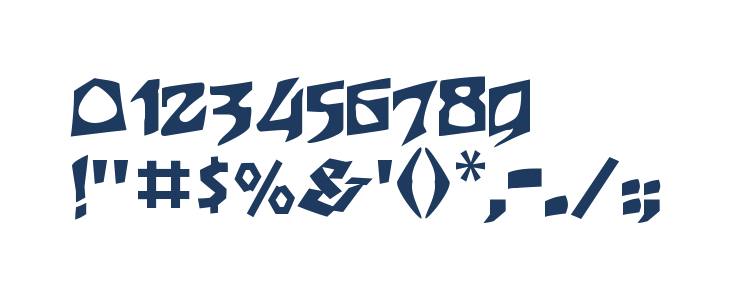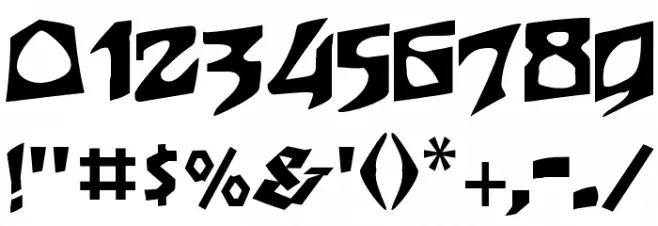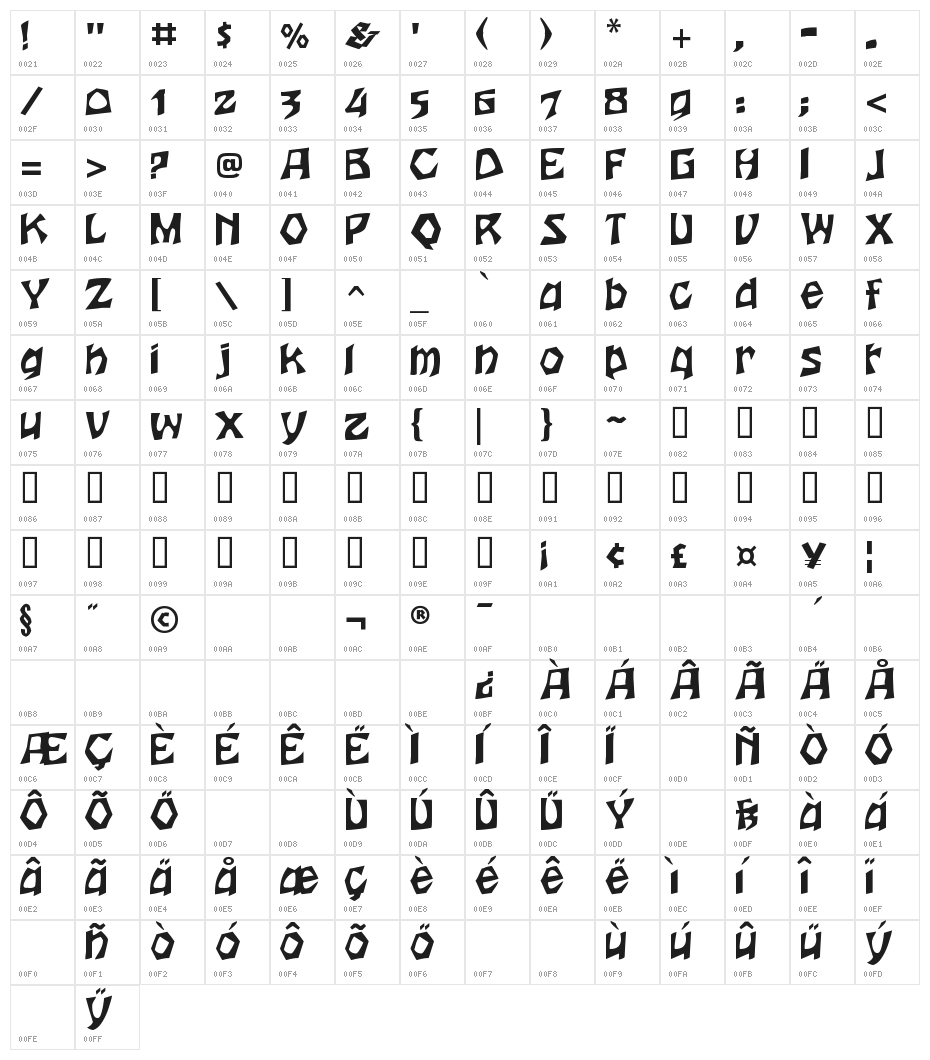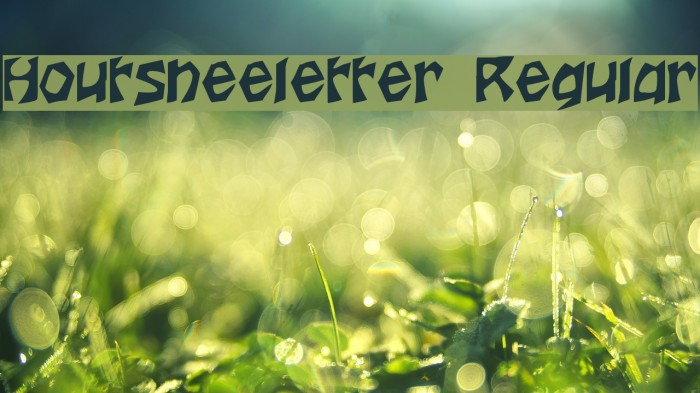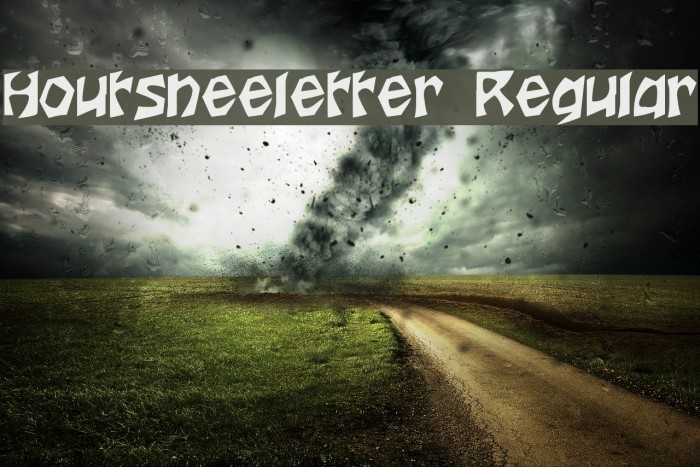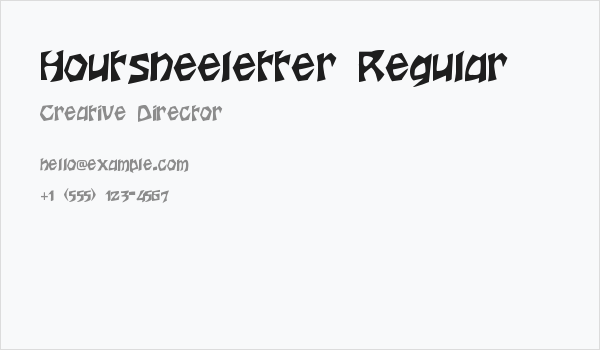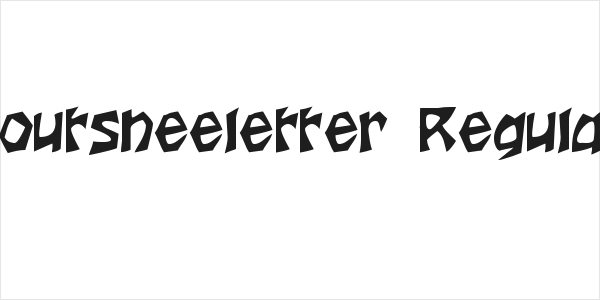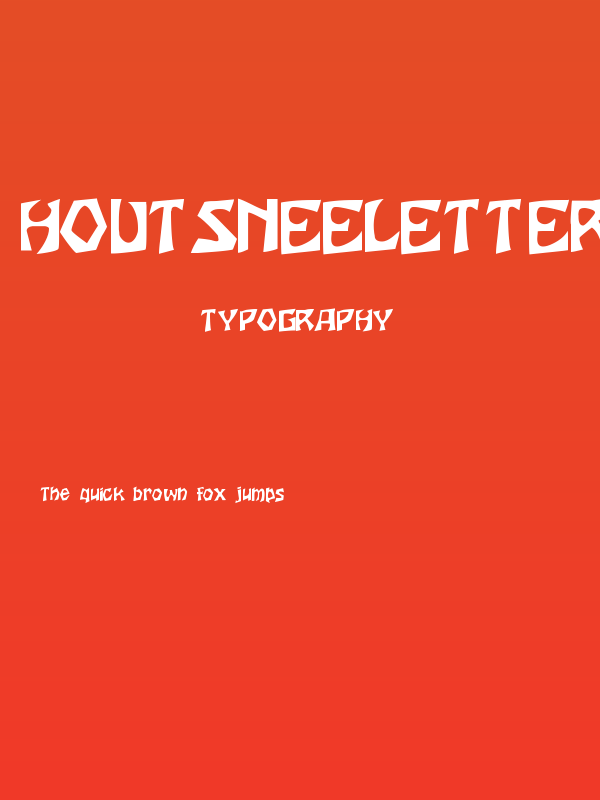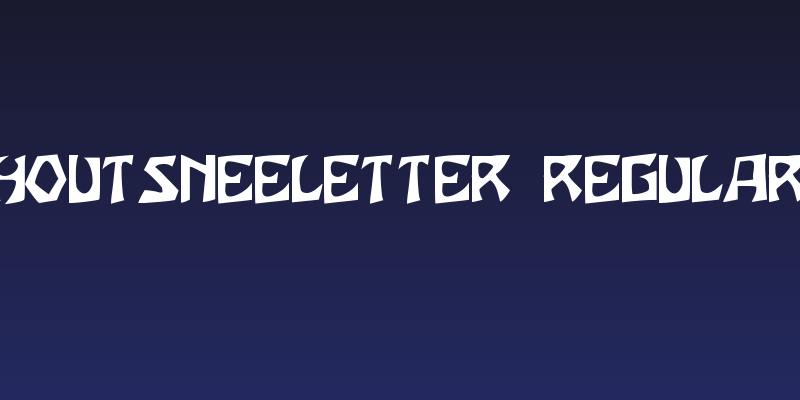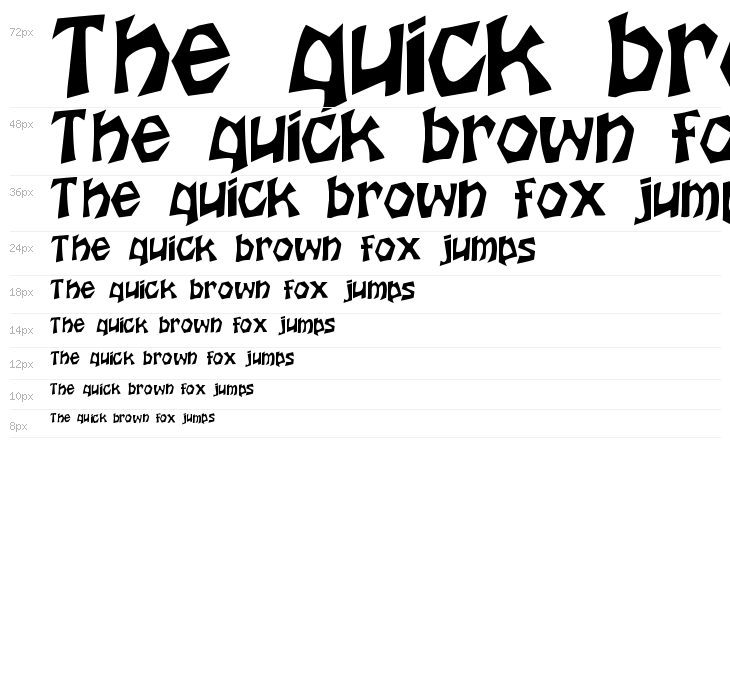
Houtsneeletter Regular Font
Houtsneeletter Regular Description
This font features a bold and dynamic style with sharp, angular edges and a distinct geometric flair. The characters are designed with a high level of contrast, creating a striking visual impact. The uppercase and lowercase letters maintain a consistent design language, with each character exhibiting unique cuts and angles that contribute to the overall edgy aesthetic. The numbers and special characters follow the same design principles, ensuring a cohesive look across all elements. The font's boldness and unique style make it suitable for projects that require a strong visual presence.
A bold, angular font with high contrast and geometric flair from Uncategorized fonts.
- Proposed Projects: Ideal for posters, album covers, branding, and any project needing a bold, edgy aesthetic.
- Overall Style: Modern, Edgy